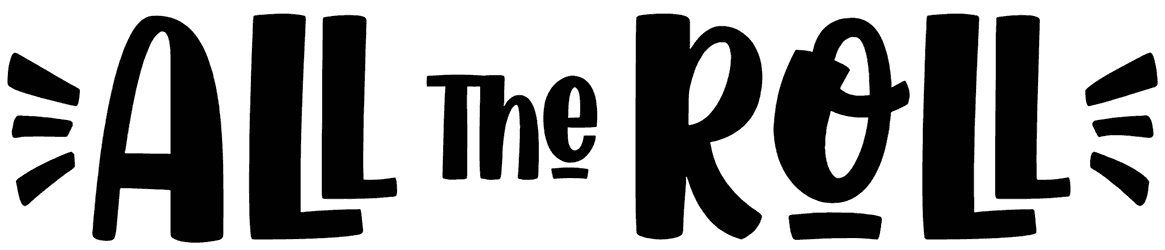
All The Roll Font
Stop using mundane lettering for once and try a cartoon font instead to see how refreshing it feels. Bring a selection of the finest features, like creative, fun, and active, to your typography with All The Roll.
This font creates a captivating feel with fat letters that aren’t so stenciled. That’s the sort of font that you can use for comic books, cartoons, website headers, and joke headlines in newspapers. BTW, make sure to check out RB’s libraries.
1. Type ( before word to get beginning swash and Type ) after word to get the ending swash.
2. Type > (greater sign) to get small “THE”
Example : (All>Roll)